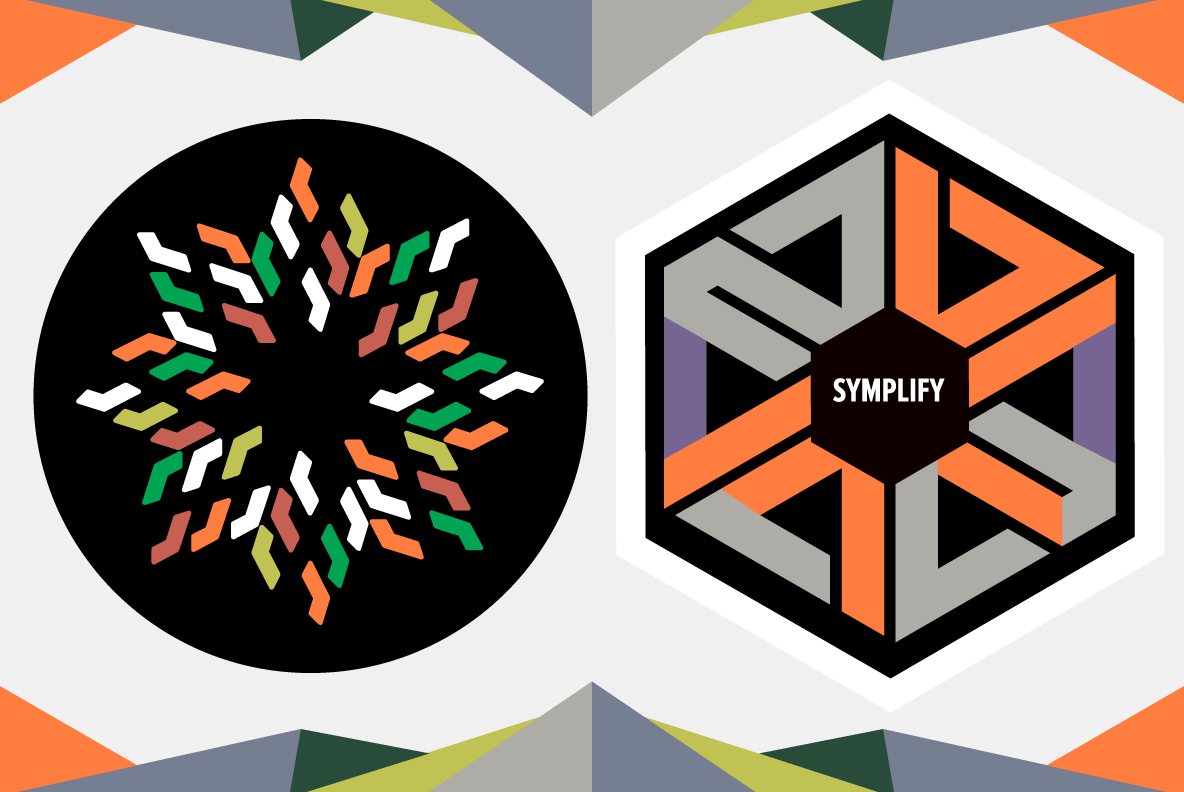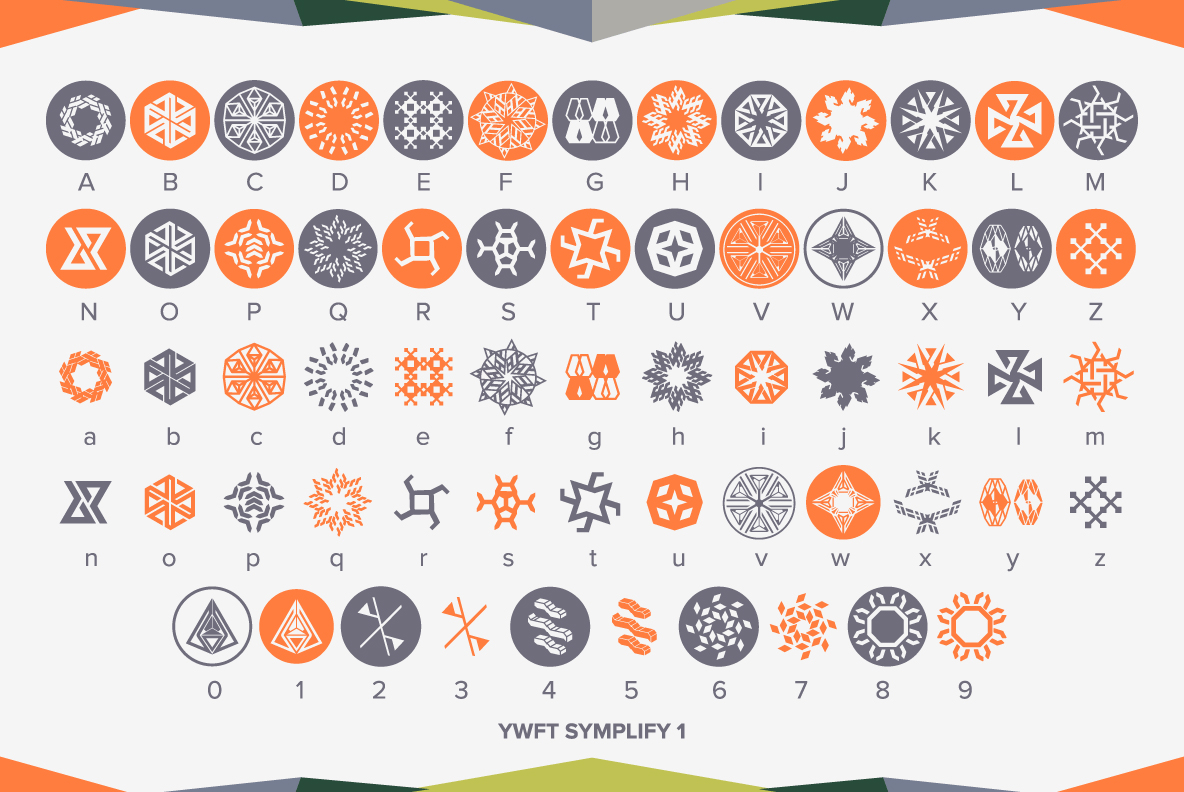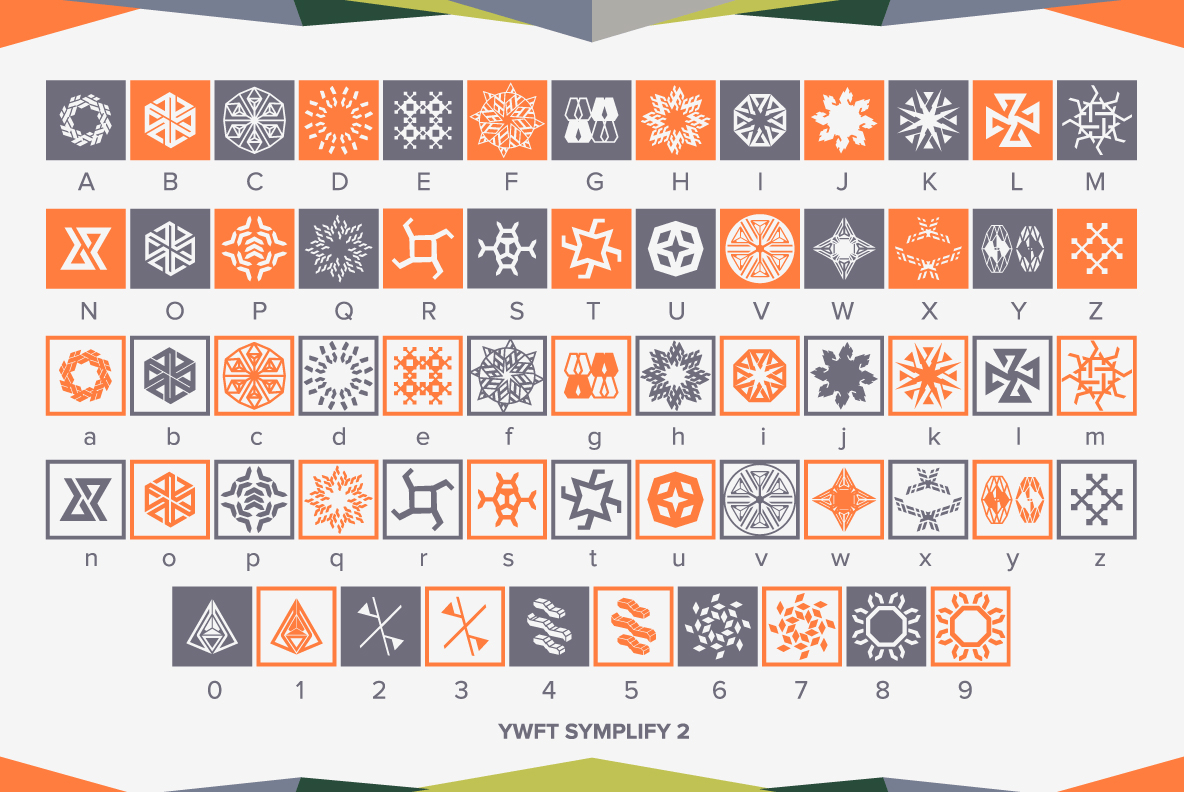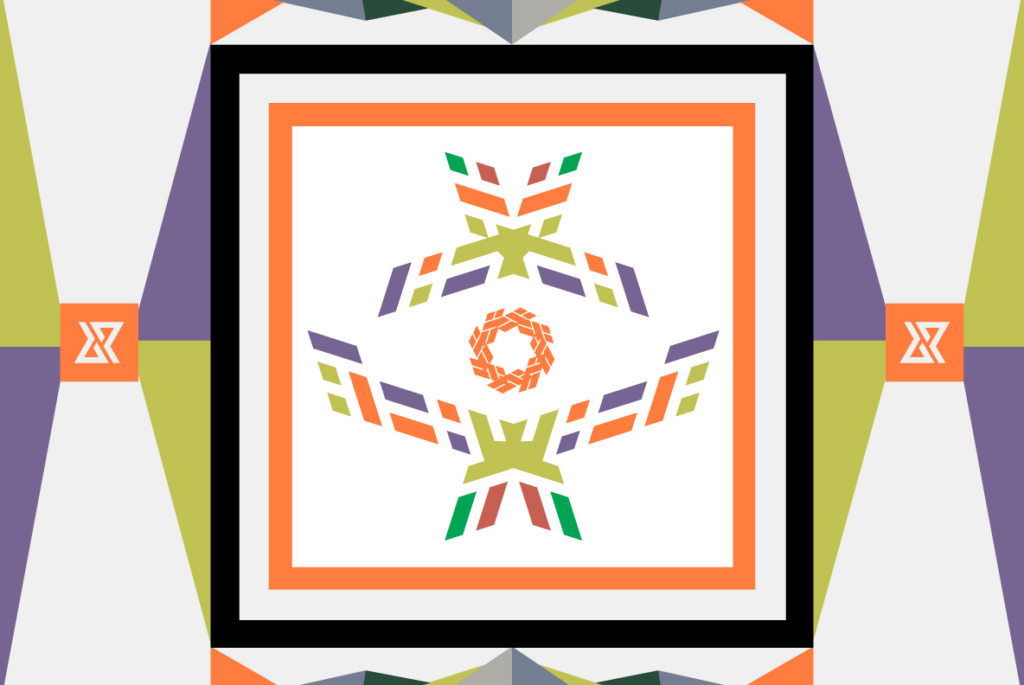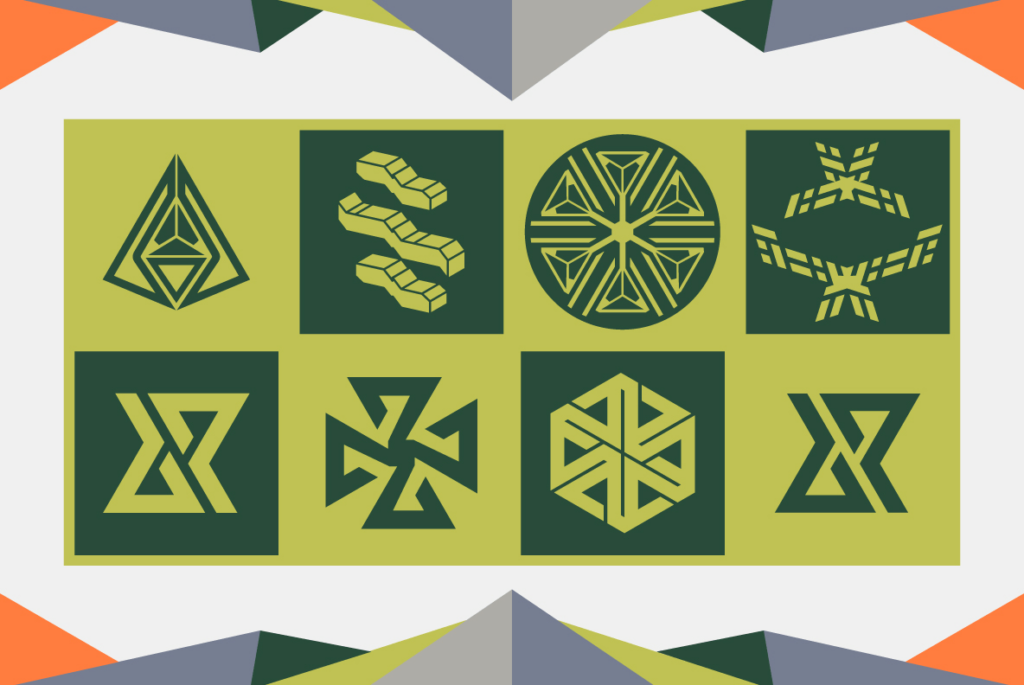
YWFT Symplify
About YWFT Symplify
If you need to wallpaper the hallway of a boutique hotel with haute couture snowflakes, look no further than YWFT Symplify. There's nothing Symple about this gorgeous, mathematical set of otherworldly symbology, and in fact it's a thing of great…